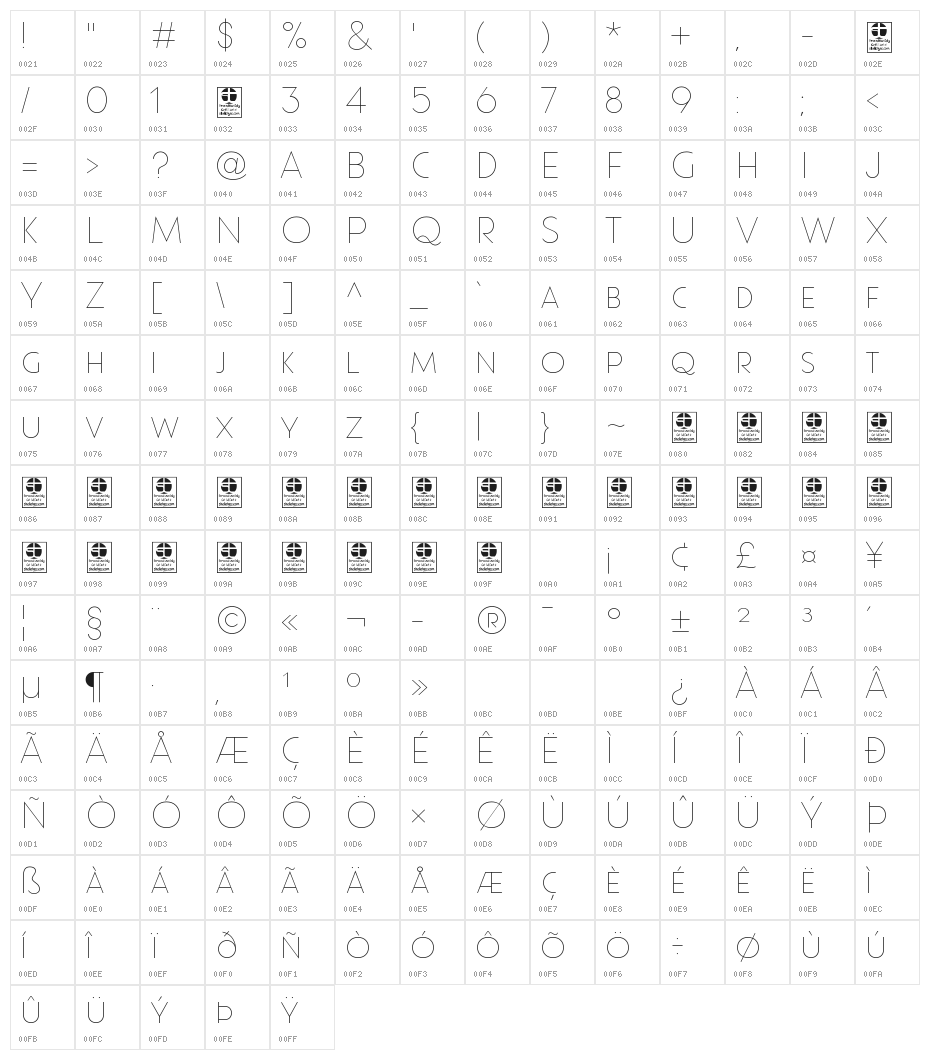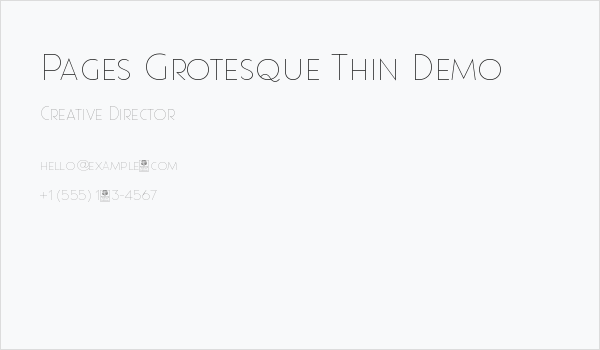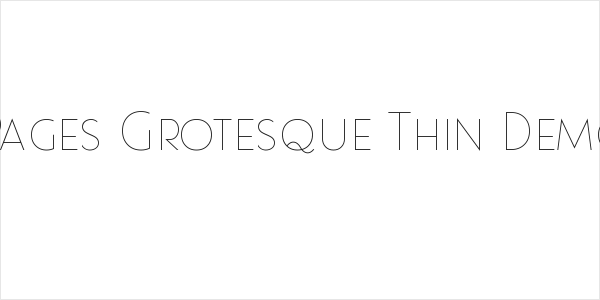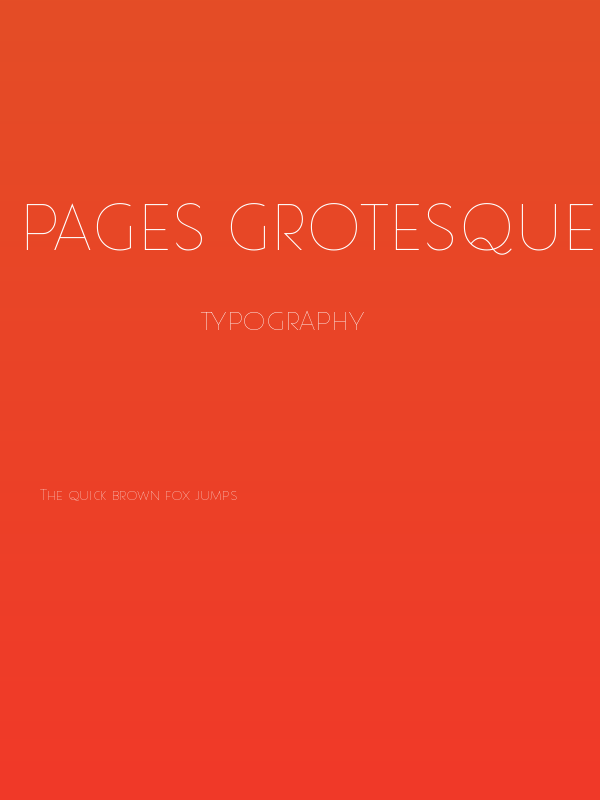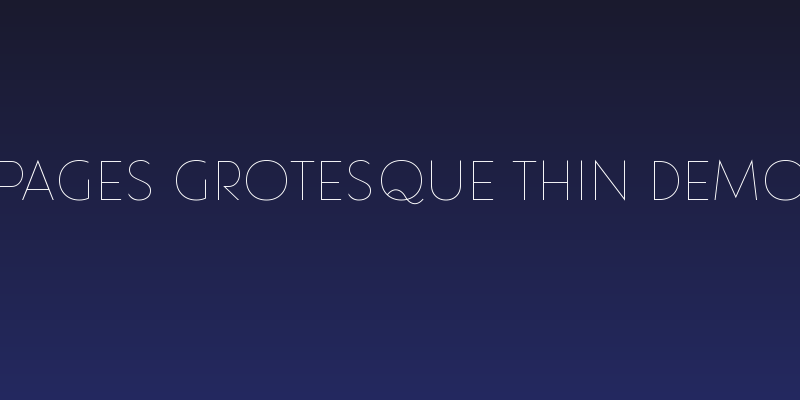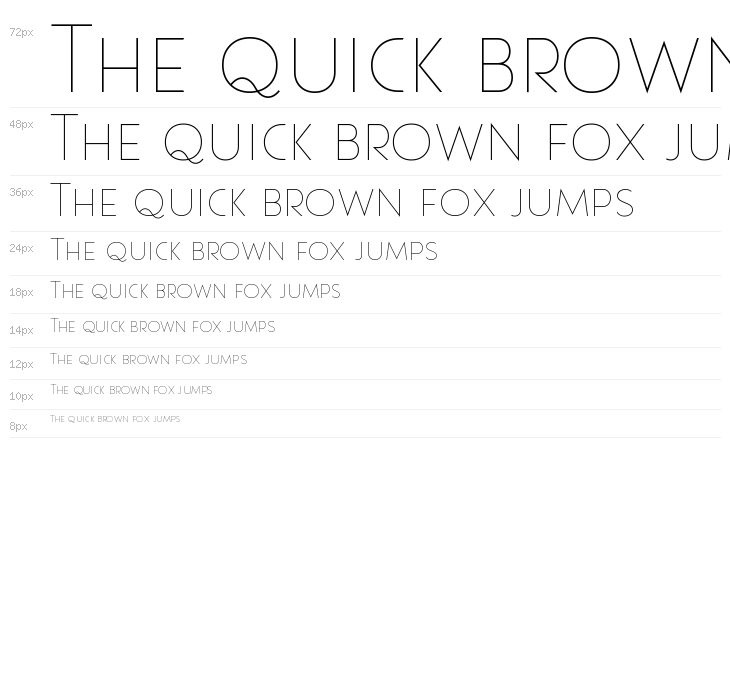
Pages Grotesque Thin Demo Font
Pages Grotesque Thin Demo Description
This font features a clean and minimalist design with thin, uniform strokes that give it a modern and elegant appearance. The characters are well-proportioned, with a consistent height and width that contribute to its readability. The uppercase and lowercase letters maintain a harmonious balance, while the numerals and special characters are crafted with precision. The overall aesthetic is sleek and contemporary, making it suitable for a variety of design applications. Its simplicity and clarity make it an excellent choice for projects that require a refined and understated look.